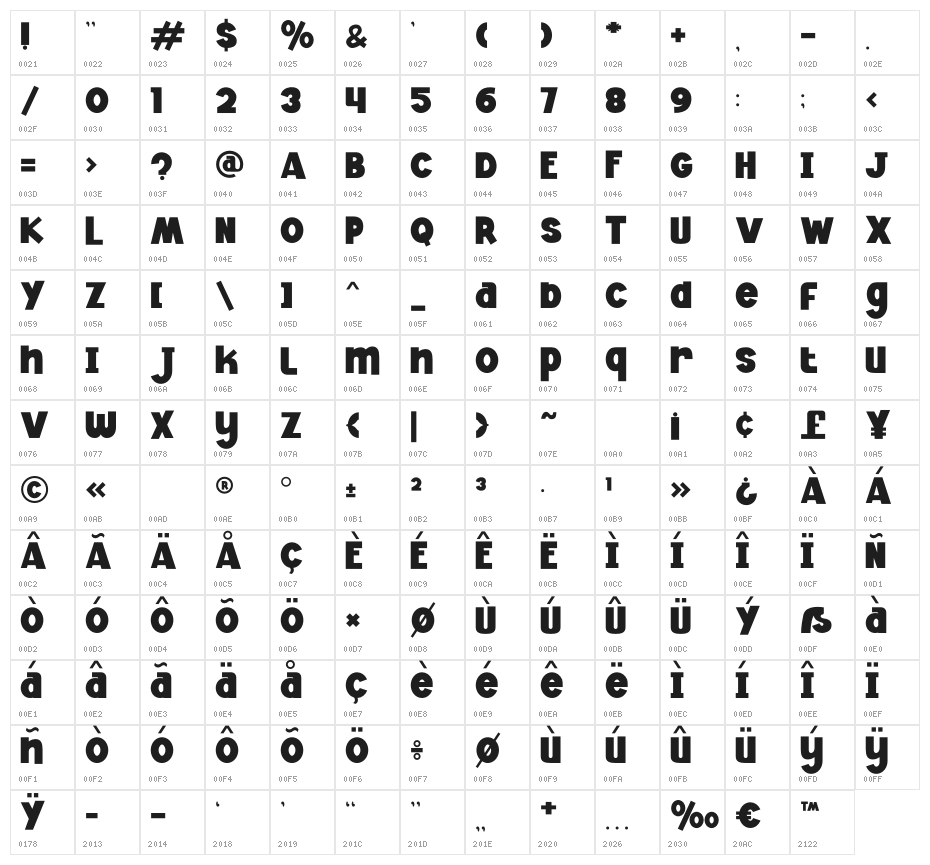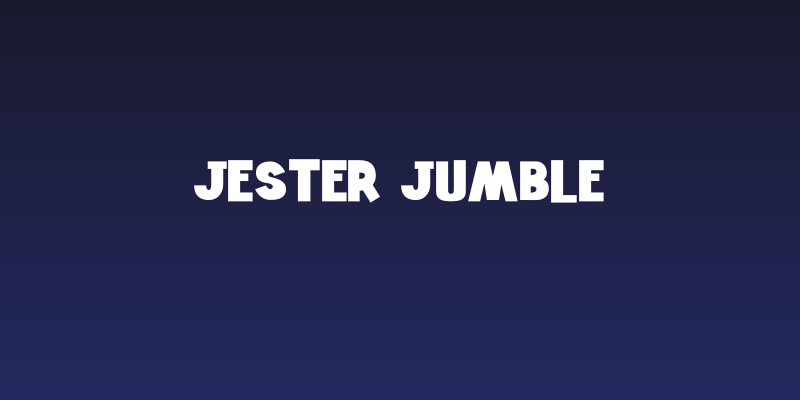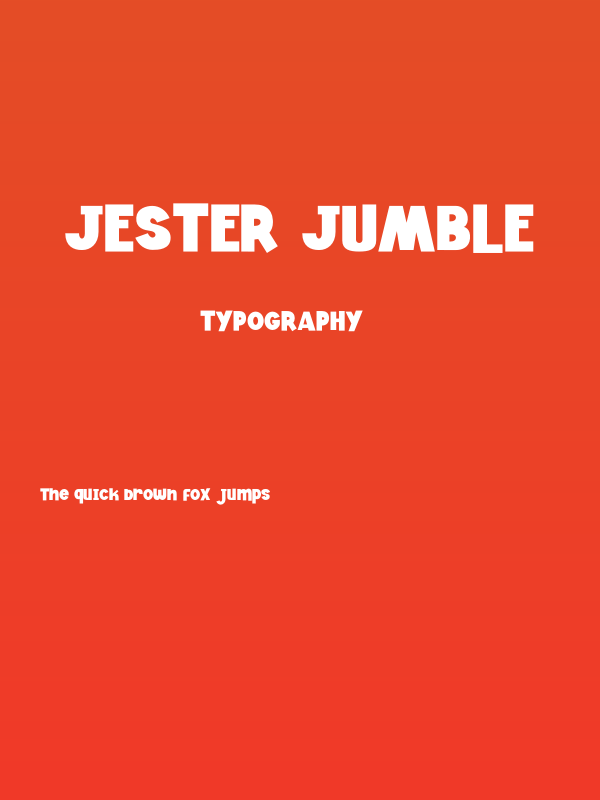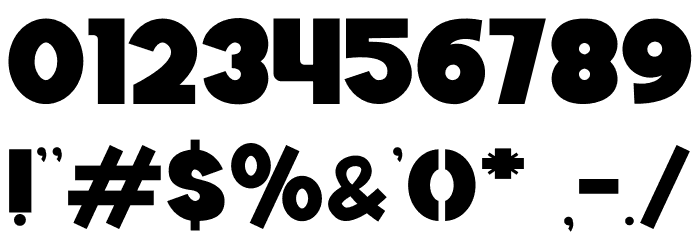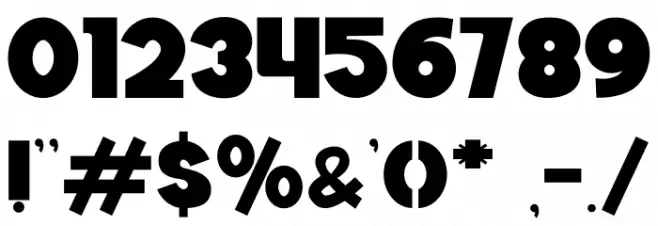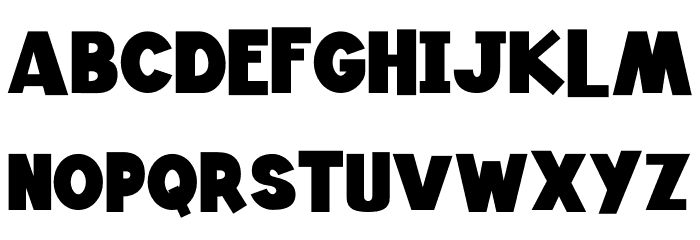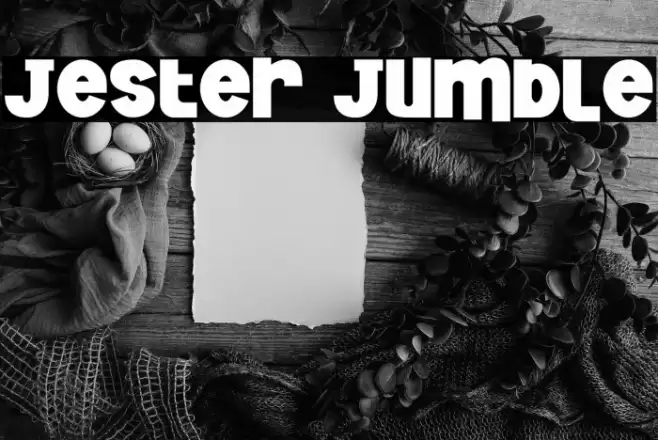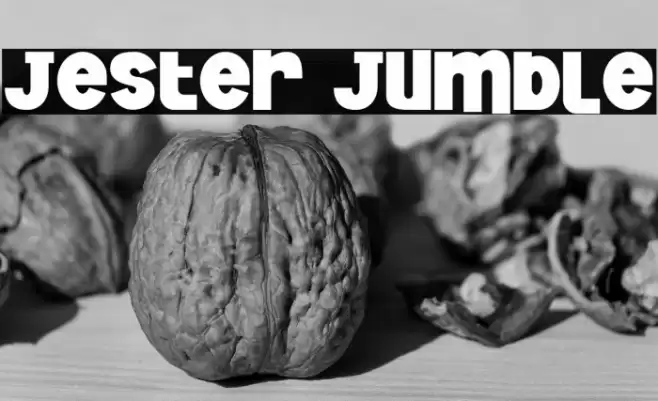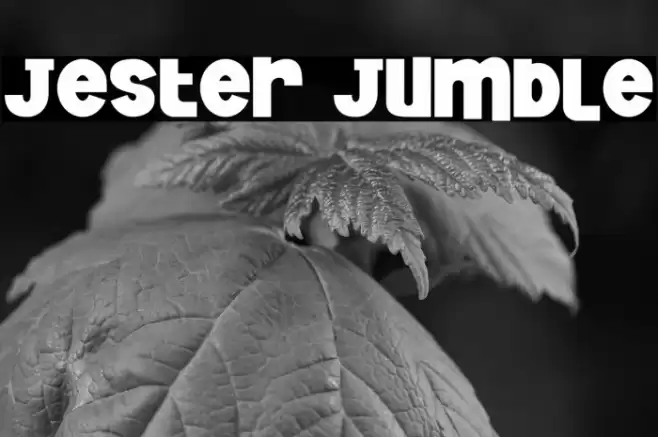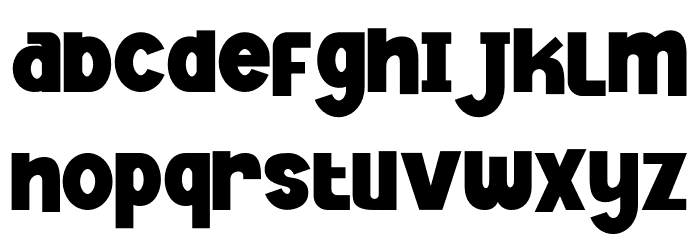
Jester Jumble Font
| Gesamtstil | Playful, Whimsical |
| Vorgeschlagene Projekte | Ideal for children's books, playful branding, posters, and creative advertising. |